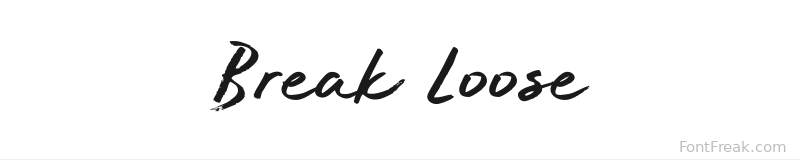
Break Loose
About Break Loose
Break Loose by BLKBK Fonts is a captivating handwritten font that embodies a sense of freedom and creativity. With its unique style, this font features a playful yet elegant aesthetic. The strokes are fluid and dynamic, exhibiting varied weight and a smooth, flowing structure that adds a personal touch to any project. The slight contrast in the stroke thickness enhances its visual appeal while maintaining readability, making it perfect for both display and body text. The spacing is well-balanced, allowing for a natural flow that enhances the overall readability of the text.
This font is ideal for a variety of applications, including wedding invitations, where its charming and informal tone can evoke a sense of warmth and intimacy. It also works wonderfully for movie posters, lending a dynamic flair to titles that need to stand out. In the realm of restaurant menus, Break Loose offers a friendly yet stylish option that can attract customers while conveying a relaxed atmosphere. Additionally, it is an excellent choice for branding materials, allowing small business owners to create an inviting and memorable visual identity.
What sets Break Loose apart is its ability to combine artistic expression with practicality. The font captures a sense of movement and spontaneity that can breathe life into any design, making it a standout choice for those looking to make a lasting impression. Embrace the freedom of expression that the Break Loose font offers and let your creativity flow.